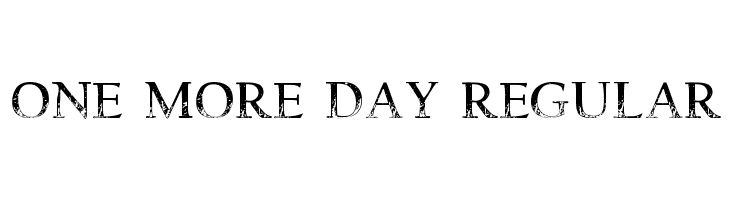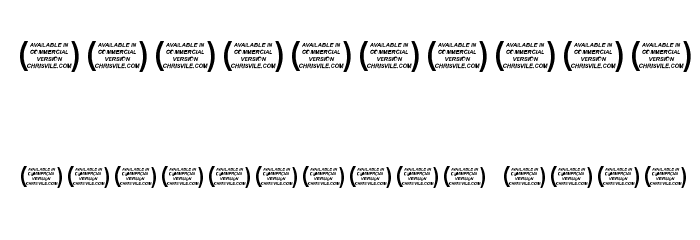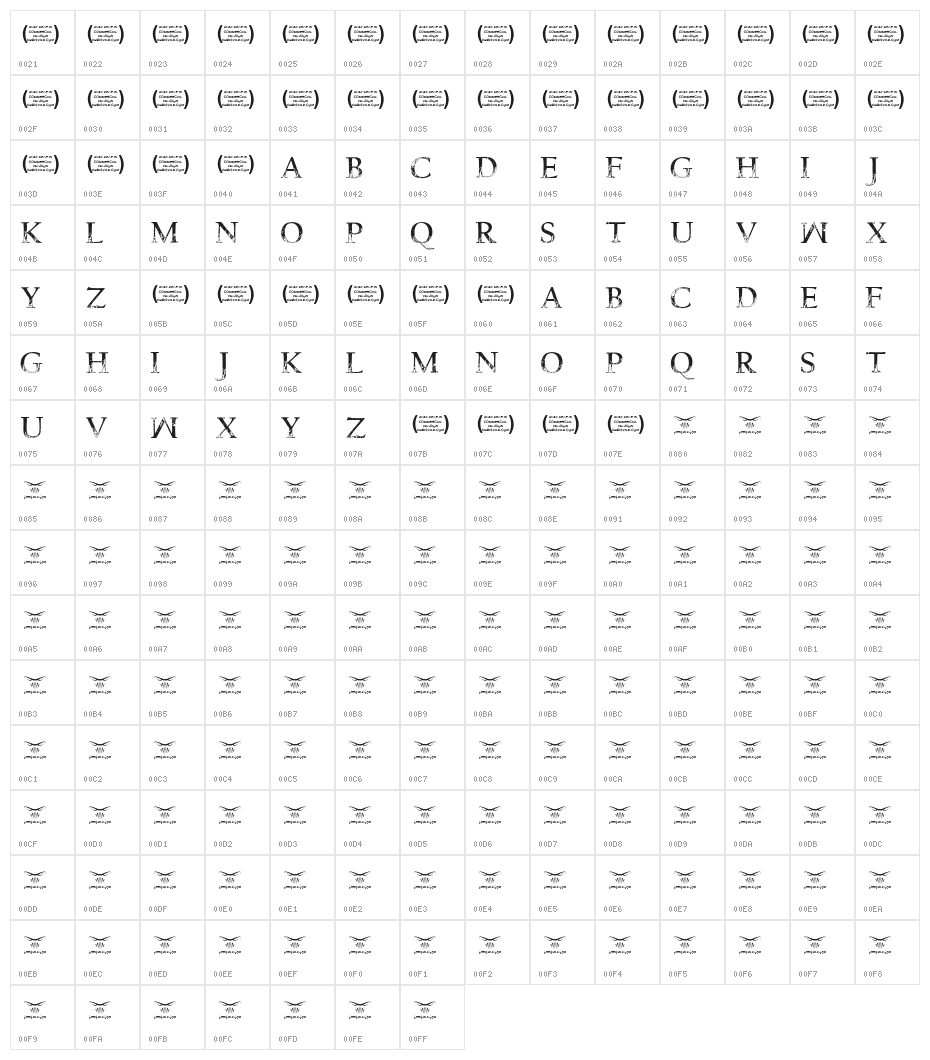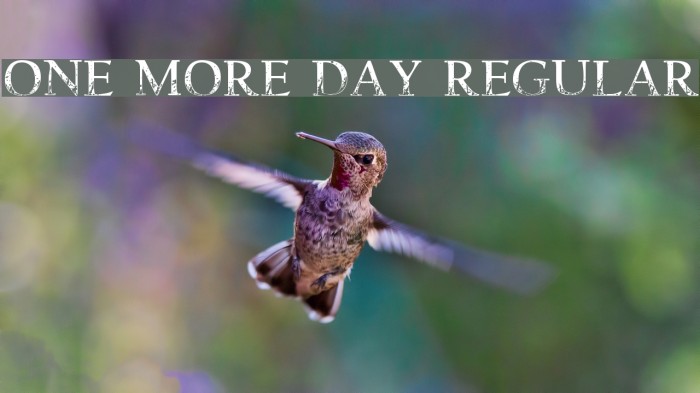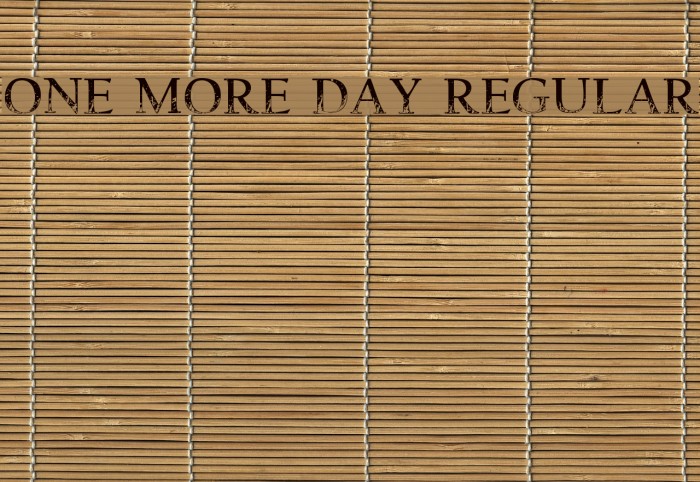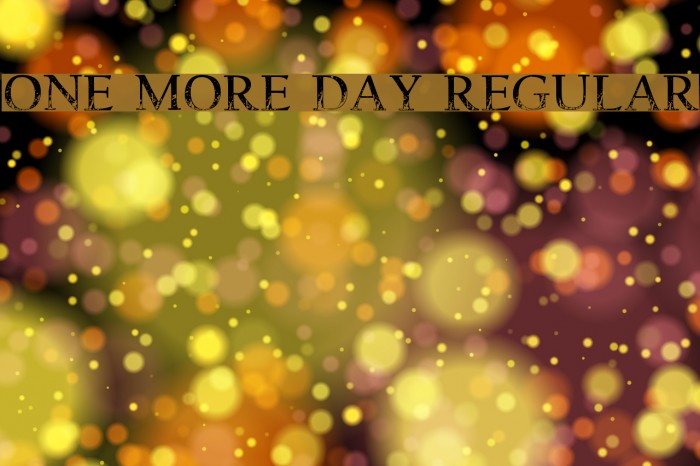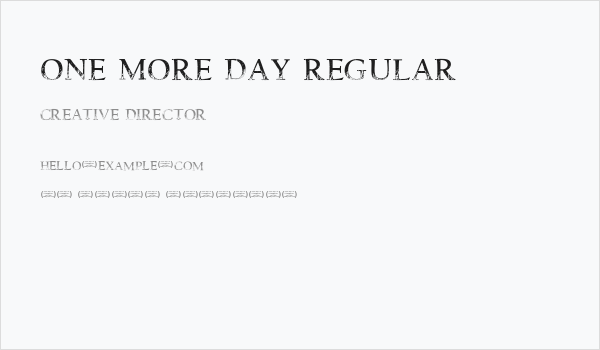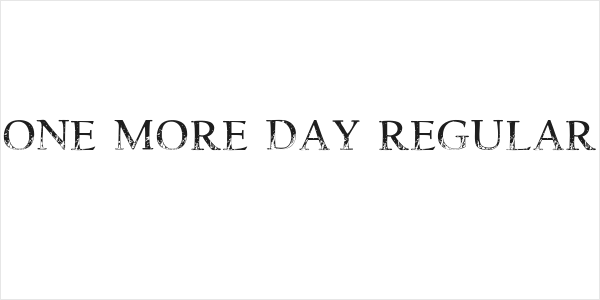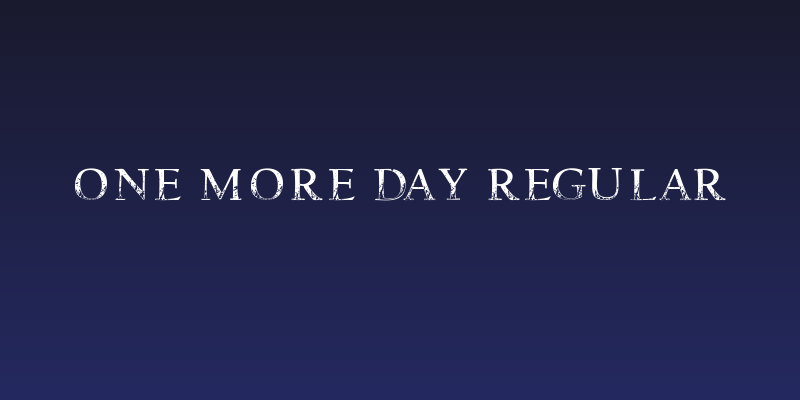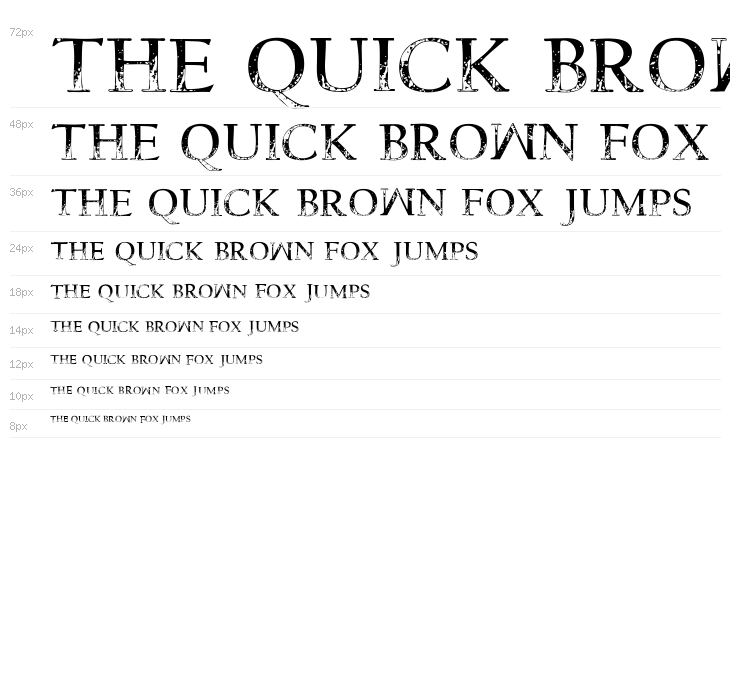
One more Day Regular Font
One more Day Regular Description
This font features a distressed, textured appearance that gives it a vintage and worn look. The uppercase letters are bold and prominent, with a serif style that adds a touch of elegance. The texture within each letter creates a sense of depth and character, making it stand out in any design. The font maintains a consistent weight throughout, with slightly condensed proportions that enhance its readability. The unique style of this font makes it suitable for projects that require a rustic or antique aesthetic.
| Proposed Projects | Ideal for vintage-themed posters, logos, branding, and packaging designs that require a rustic or antique feel. |